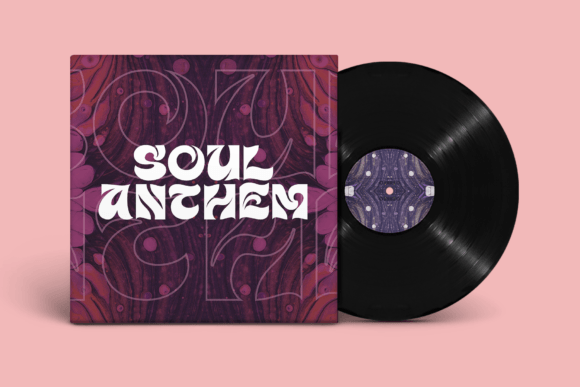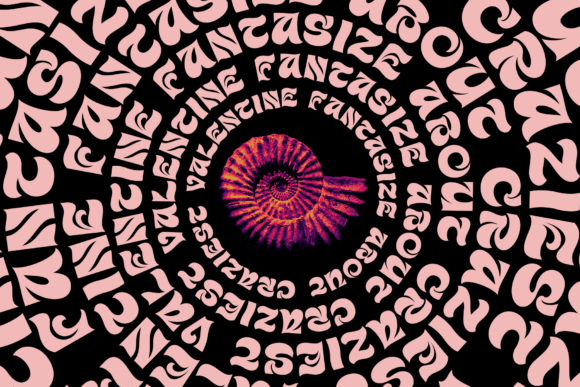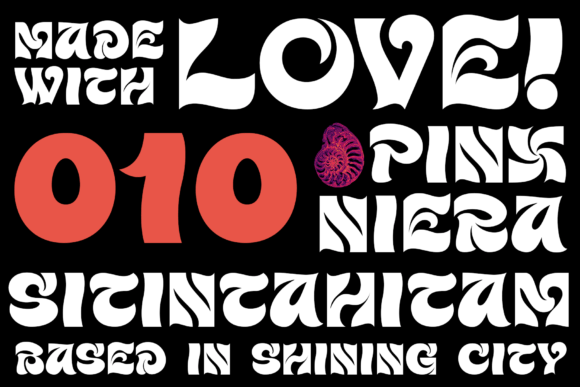
Introduction to Pinx Niera Font
Have you ever been in the midst of a creative project, staring at a blank canvas, and suddenly, the perfect design idea strikes? For designers, those moments are what make the process so exhilarating. And, for those who crave bold and eye-catching typography, we’re thrilled to introduce the Pinx Niera Font – a game-changing design resource that’s sure to elevate your next project.
With its clean and unique form, the Pinx Niera Font is an instant head-turner, perfect for branding materials, t-shirts, print, logos, posters, and packaging. This versatile font is an absolute must-have for designers looking to add a touch of psychedelic flair to their work. Whether you’re working on a creative project or simply need a high-quality font for your next design, Pinx Niera Font is a valuable addition to your design arsenal.
Key Features of Pinx Niera Font
- High-quality, unique design ideal for creative projects, offering a distinctive touch.
- Designed to work well in both digital and print media, making it a versatile design tool.
- Unique characteristics include elegant lines, subtle textures, and a vintage aesthetic, perfect for adding a touch of sophistication to any design project.
Honest Review: Pinx Niera Font
I recently had the chance to work with the Pinx Niera Font, and I must say it’s a great addition to any creative project. This design resource is perfect for those who need a clean and elegant font for their next project.
- ✨ High quality design that’s perfect for creative projects
- ✨ Great for use in digital designs, such as websites and social media graphics
- ⚠️ Limited character set, which may be a concern for those who need to use special characters
- ⚠️ May not be suitable for print designs, due to its digital origins
Overall, I’m impressed with the Pinx Niera Font. It’s a great resource for designers who need a high-quality, elegant font for their next project. While it may have some limitations, it’s definitely worth checking out.
Pinx Niera Font is commonly used in logo design, branding, and marketing materials. Its high-quality design and transparent background make it an ideal choice for designers looking to create visually appealing and professional designs.